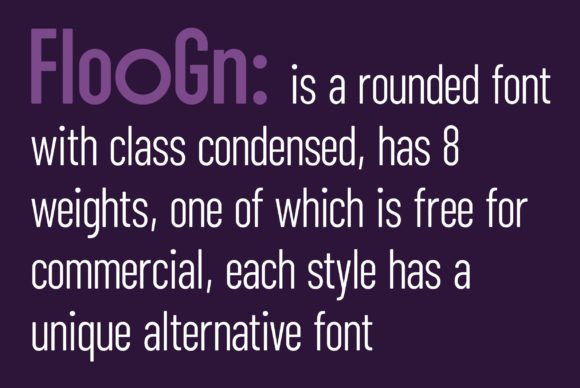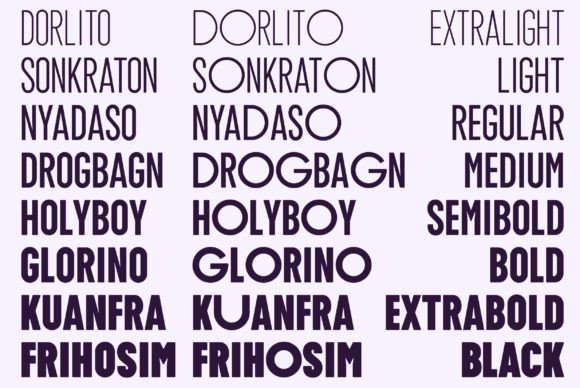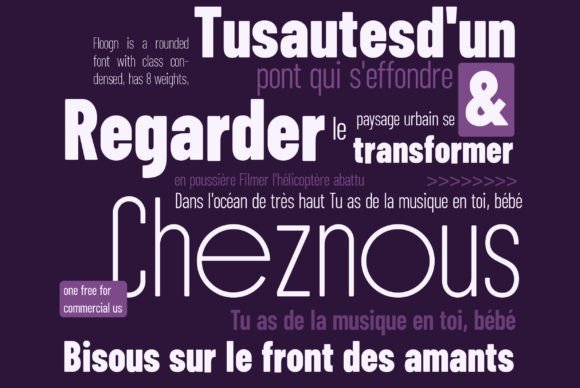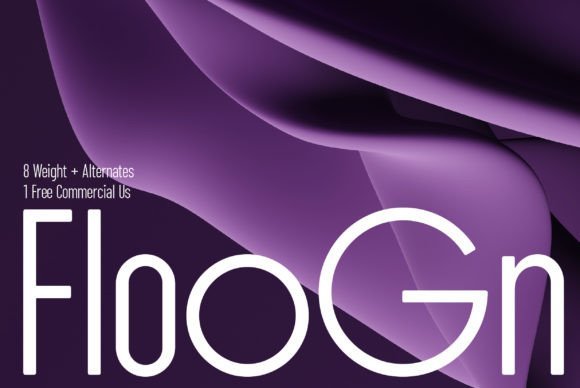
Introduction to Floogn Font
The new ZT Floogn font family, designed by Khaiuns and published by Zelowtype, is a modern, dense sans serif style with a rounded look.
This font is characterized by its balanced proportions, uniform stroke width, and subtle variations in typeforms, giving it a distinctive look at all weights Due to the narrow shape of the ZT Floogn typeface, it is best applied to headlines and poster-sized typography, resulting in designs with a fresh, friendly personality.